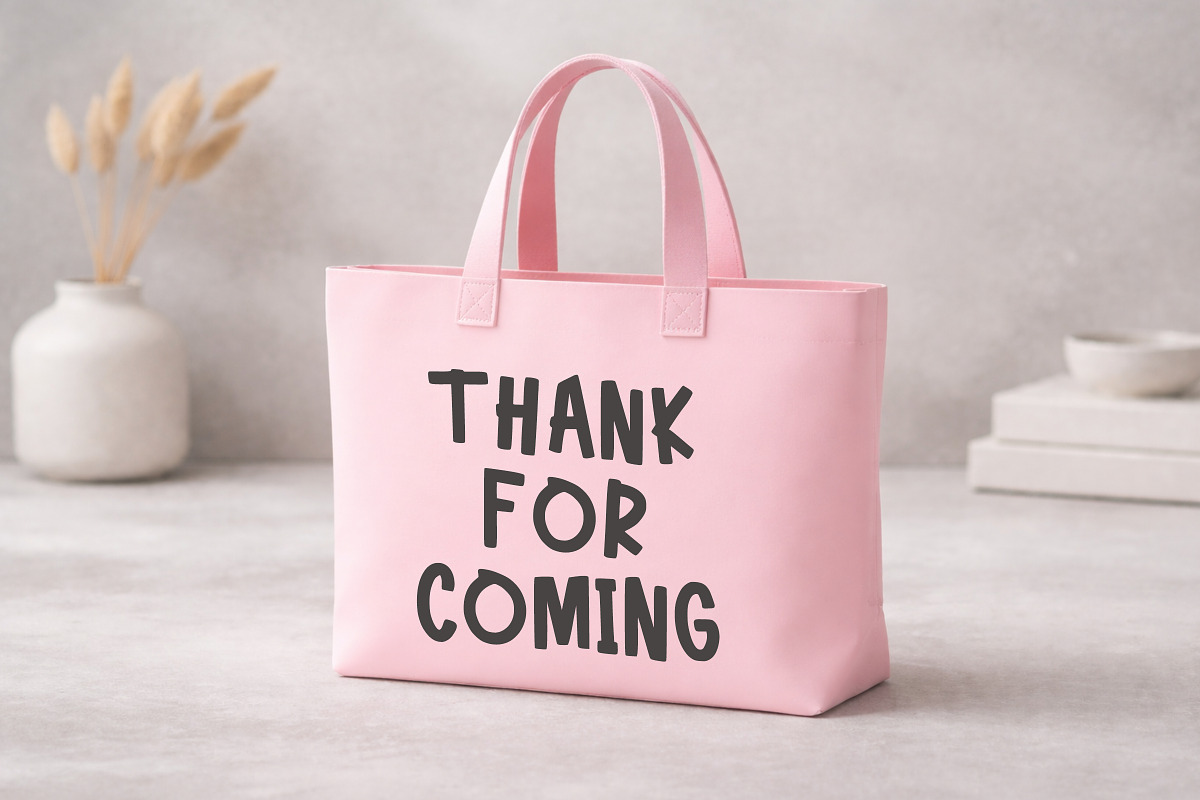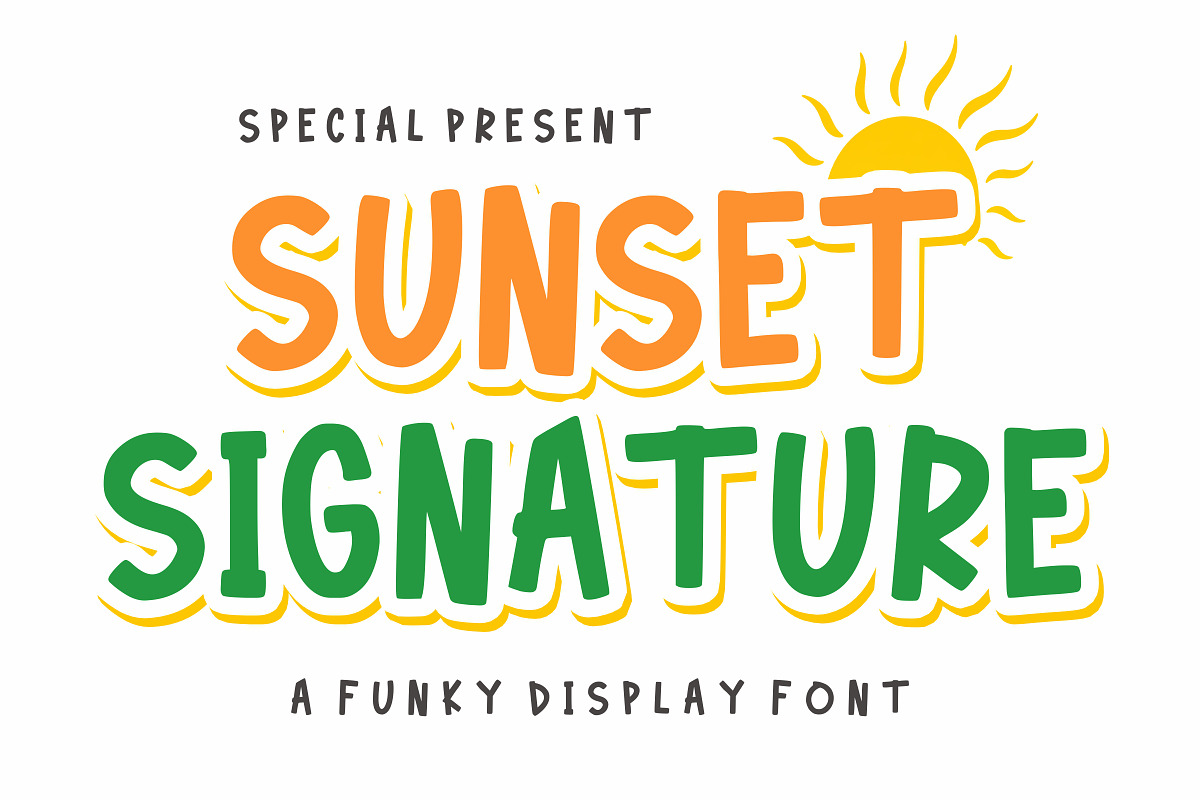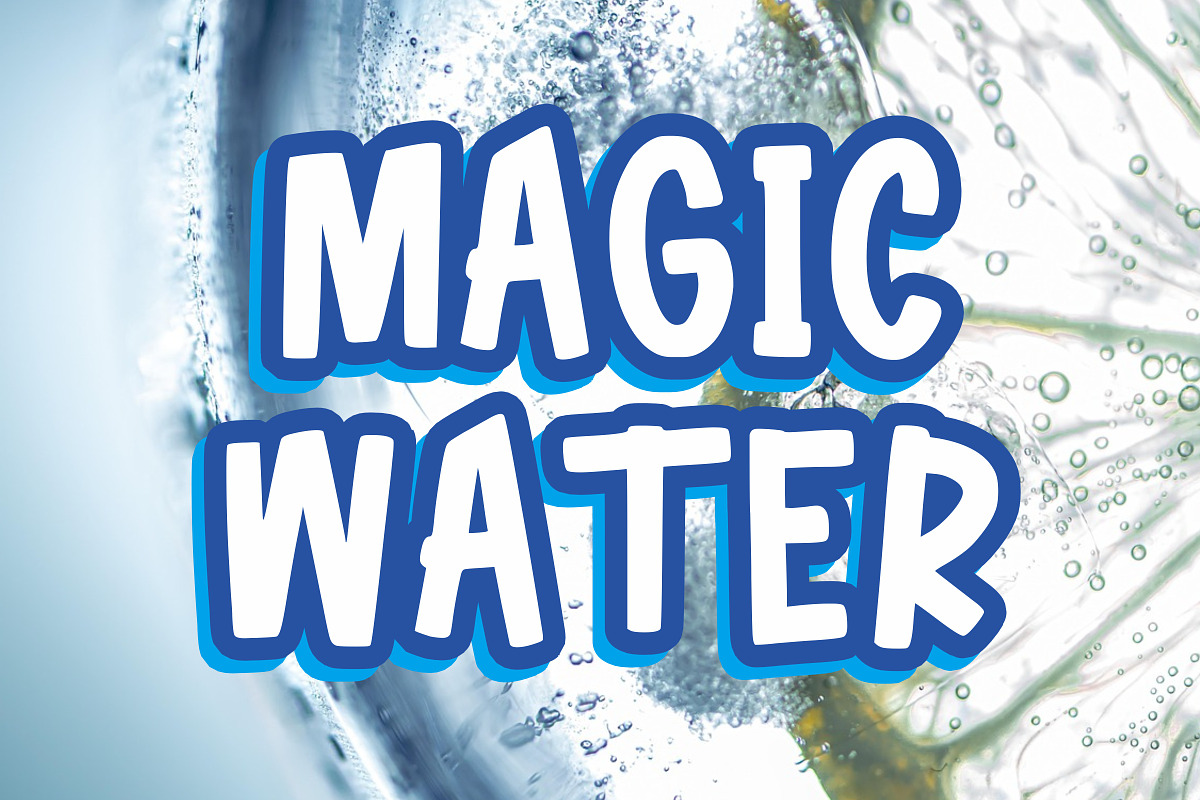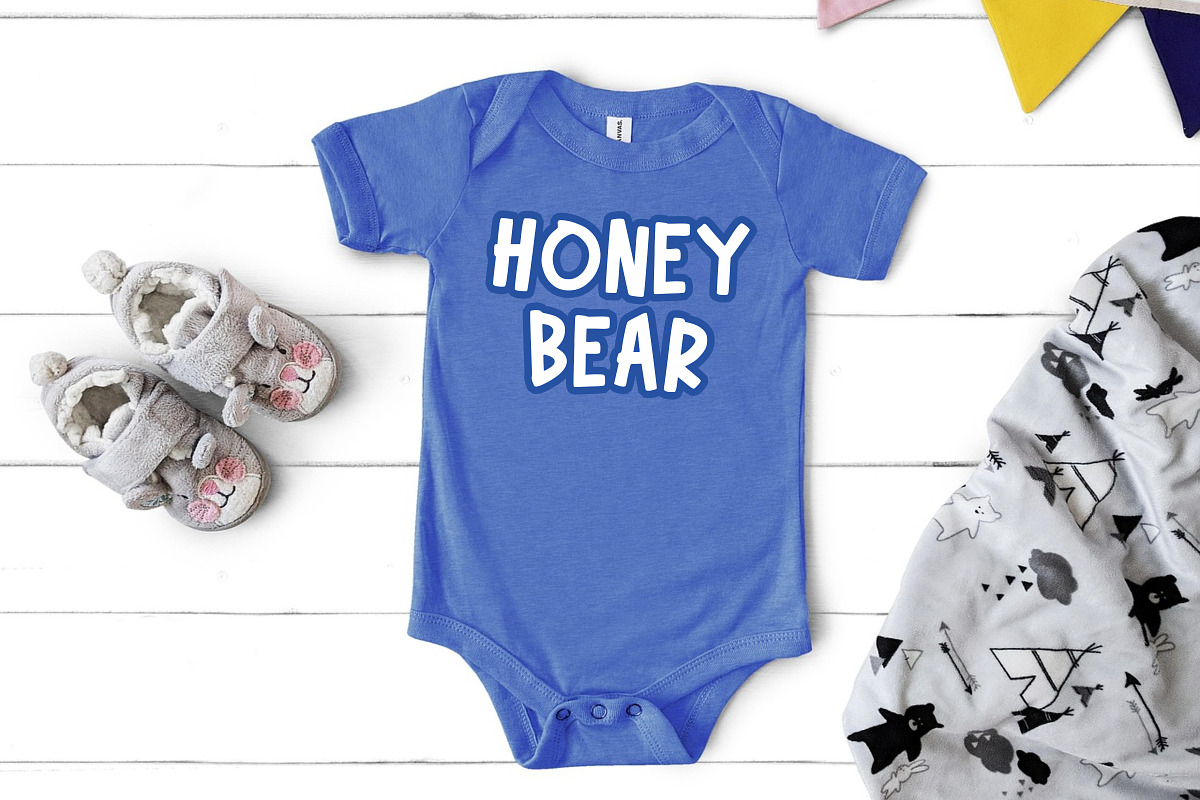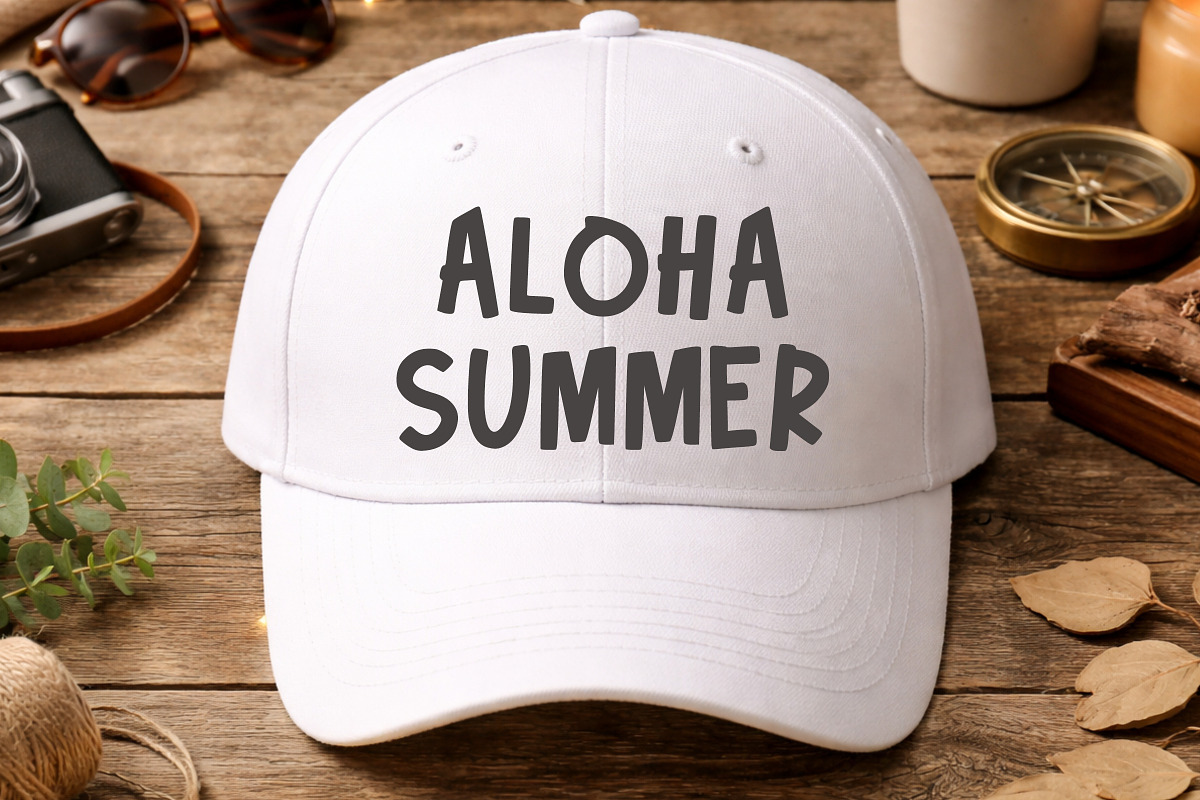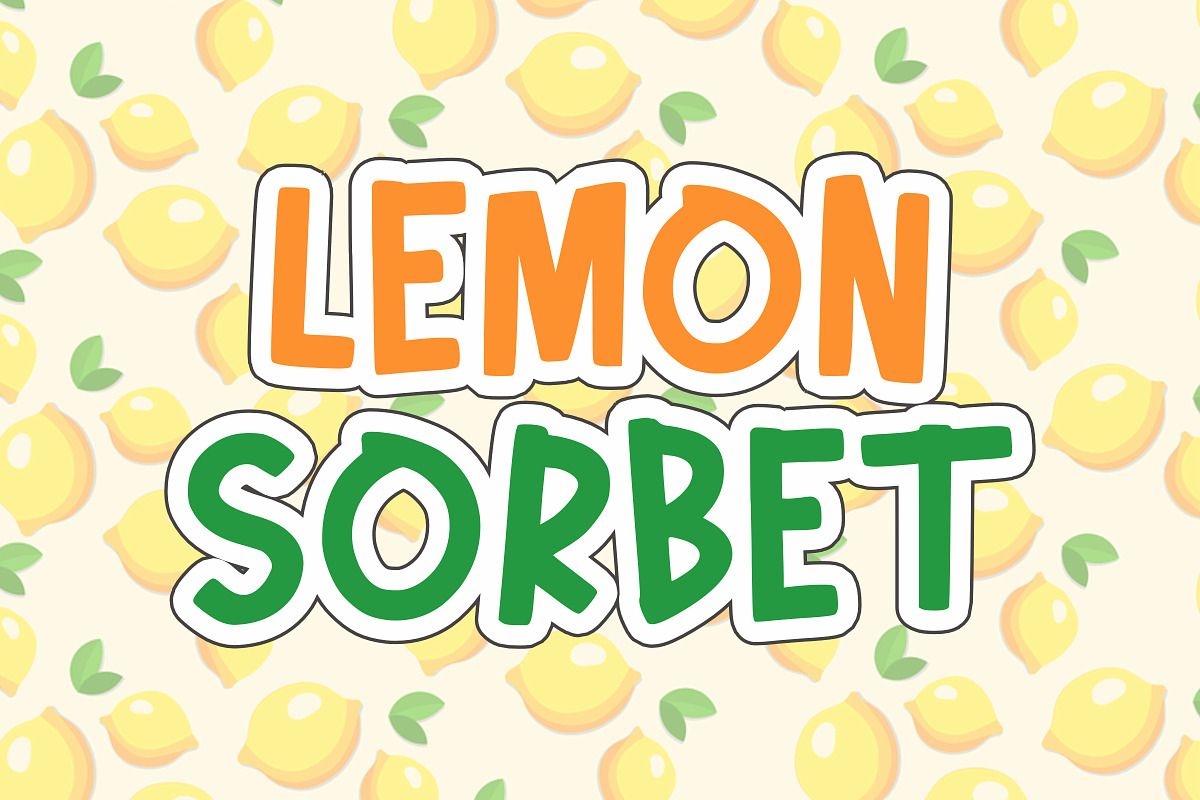
Sunset Signature
Sunset Signature is a fun and vibrant display font inspired by warm summer sunsets and playful hand-drawn lettering. With its bold shapes, smooth curves, and slightly irregular strokes, this font brings a cheerful and relaxed atmosphere to any design.
Perfect for kids-themed designs, summer projects, branding, posters, t-shirts, packaging, social media graphics, and more. Its unique layered style makes your text stand out effortlessly while keeping a friendly and approachable look.